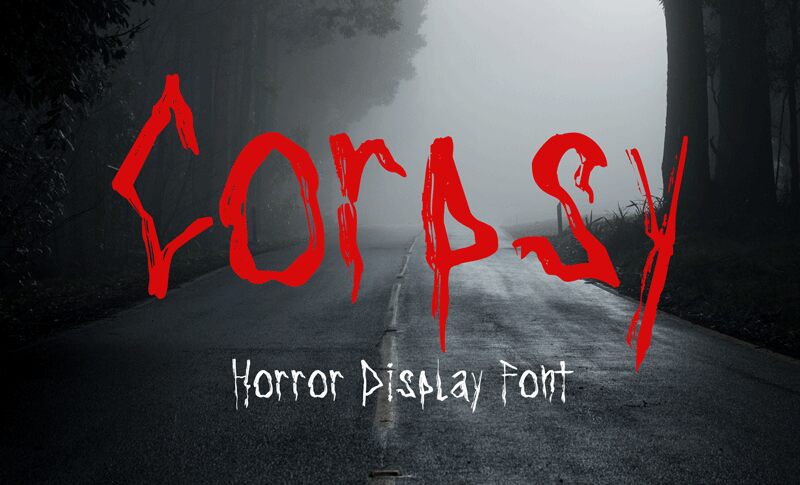
Corpsy Italic font designed by Mofr24 is a scary display font leaking with horror influences suited for the Halloween season, or any eerie designs. This raw, dynamic irregular typeface has hand-drawn erratic letters. Its versatility and uniqueness will make your designs stand out on all desired publications.
Corpsy
Corpsy Italic